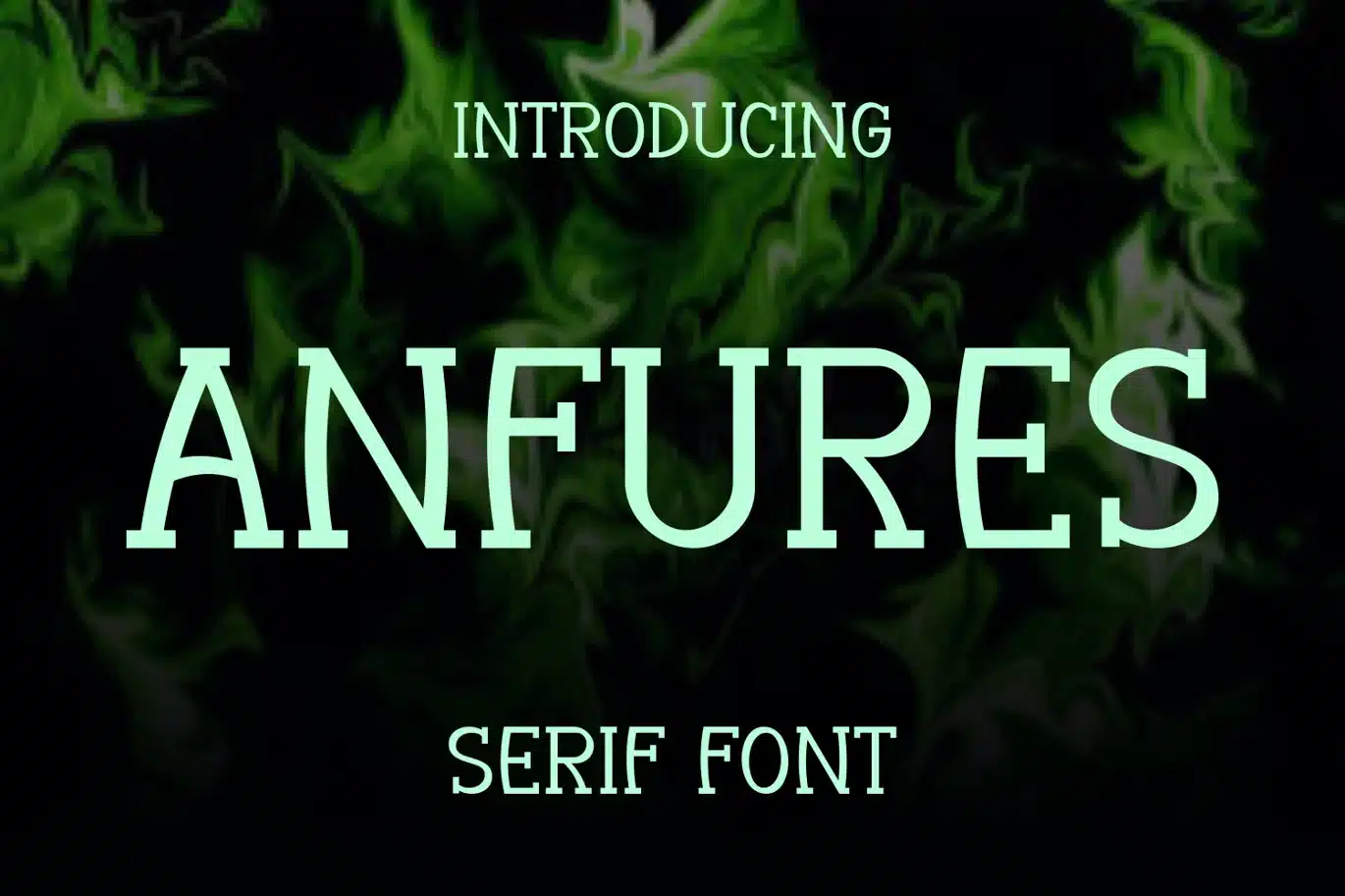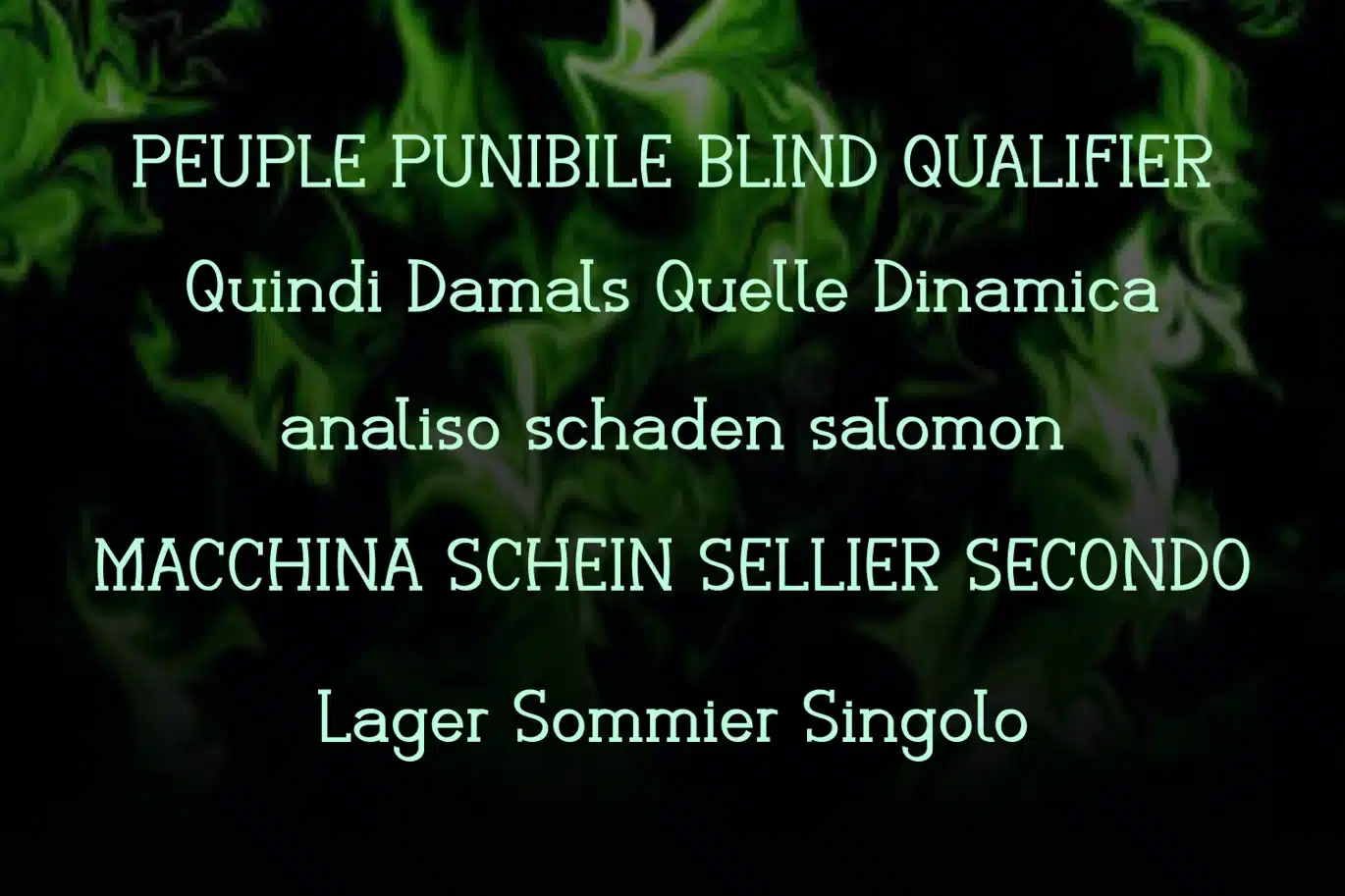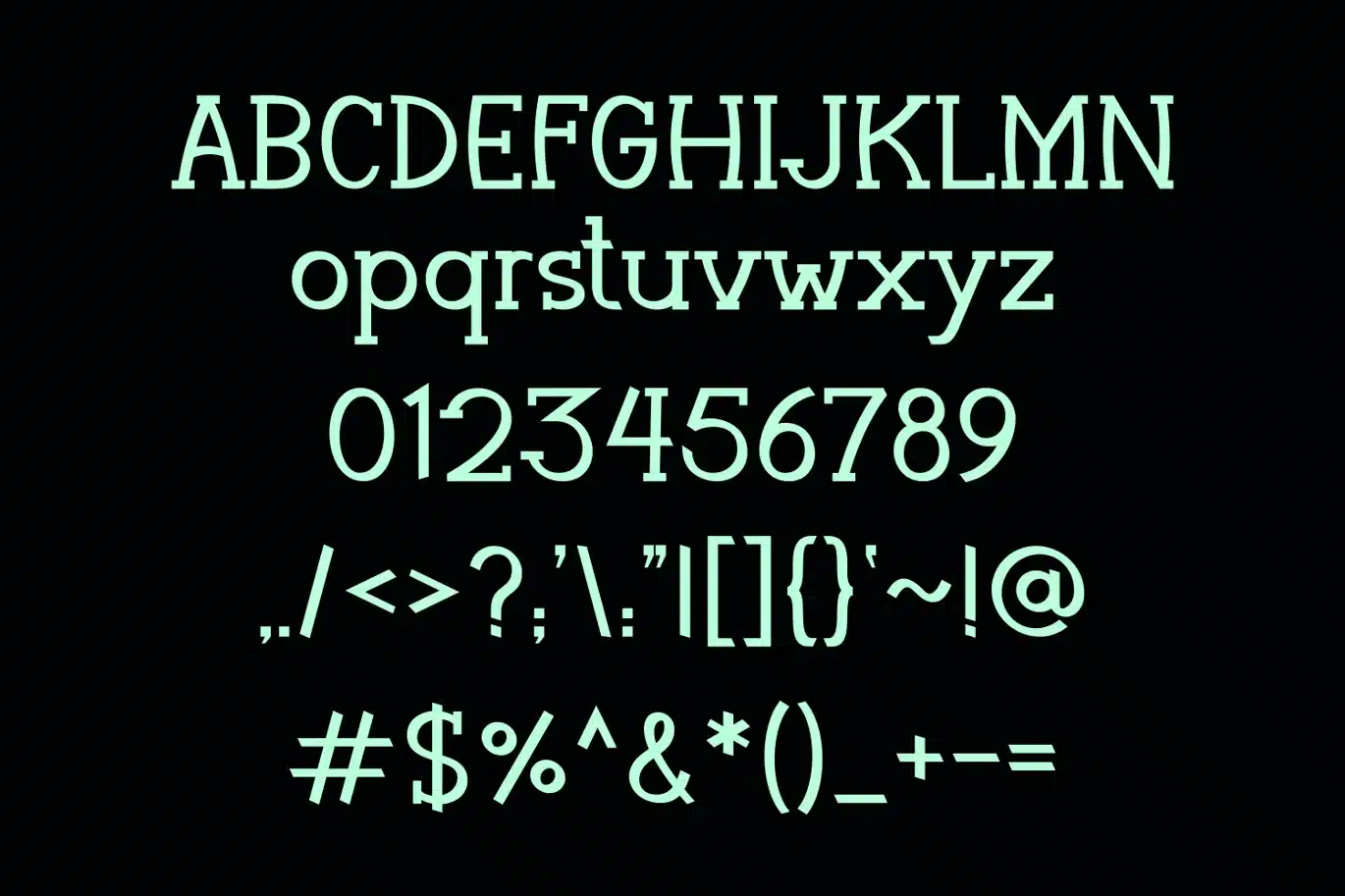
Anfures Logo Font
Anfures Logo
Perfectly suited on print/screen. it’s perfect for Branding, name card, poster, logo, magazine,
cover, banner, tshirt and headers, or even large-scale artwork.
*Uppercase & Lowercase
*Number
*Punctuation